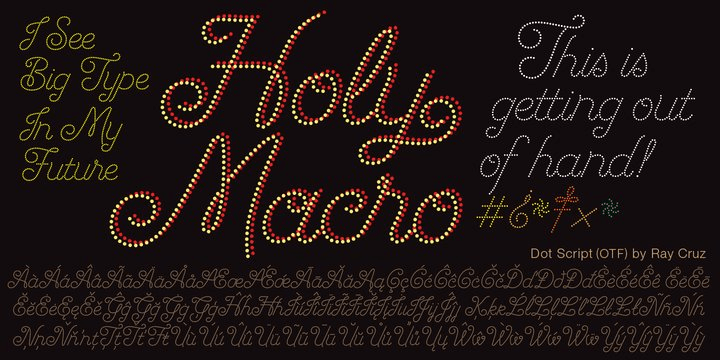
HomeFont BrosScripts: CasualDot Script Scripts: CasualSpecial Effect Dot Script FacebookXPinterestWhatsApp 1 of 1 About Dot Script A display typeface built with dots for use at large sizes. It is smooth and elegant. Great for titles, headlines, advertising, music, toy products and cosmetics with a youthful flavor.  DOWNLOAD NOW People also explored Heart & Salsa Font Written Font Steinwald Anegoya Font Mocha Mattari Abessom Font Bathalyone Font Starry Night Font Roshtida Font 221 0 TagsDot Script Font Previous articleAsterism CleanNext articleVoyeur Monogram LEAVE A REPLY Cancel reply Comment: Please enter your comment! Name:* Please enter your name here Email:* You have entered an incorrect email address! Please enter your email address here Website: Save my name, email, and website in this browser for the next time I comment. Personal Use Free Mellgatha Personal Use Free Read more about this font Talking on Personal Use Free Read more about this font Luxima Personal Use Free Read more about this font Pinky Personal Use Free Read more about this font BLOG How to Install and Use Fonts on Windows, macOS, and Web Projects How to Install and Use Fonts on Windows, macOS, and Web Projects Fonts are a crucial part of design and branding. Whether you’re designing a... Top 10 Handwritten Fonts That Elevate Your Designs Exploring Font Trends Best Fonts for T-Shirt Design – Top 2025 Picks